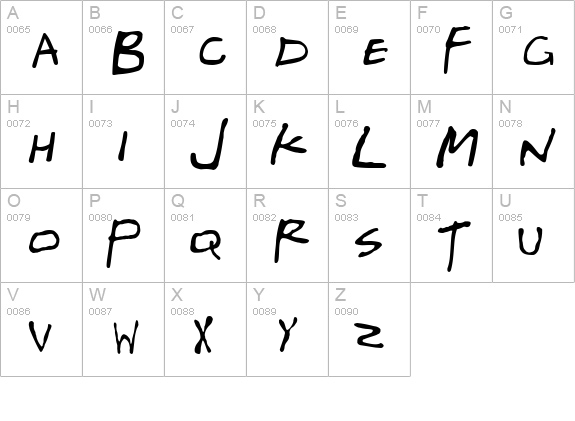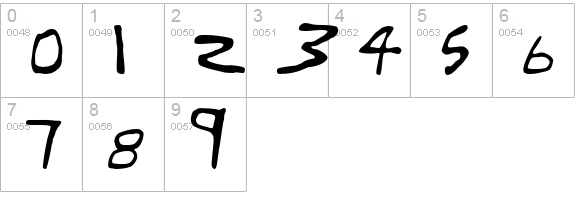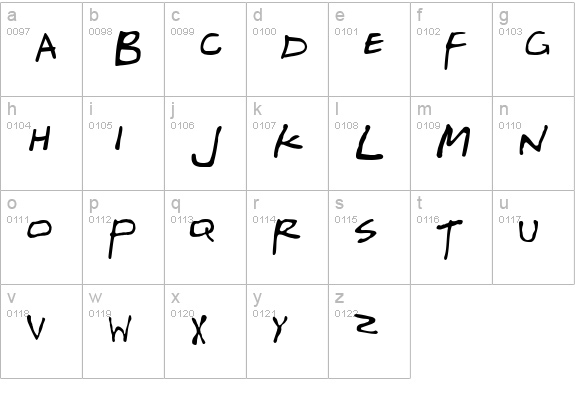
Friends Font Details
The Friends font is a fun and stylish typeface inspired by the iconic TV show. With its playful and friendly design, this font is perfect for adding a touch of nostalgia to your projects. Whether you're creating invitations, posters, or social media graphics, the Friends font is sure to make a statement. Best of all, the Friends font is available for free download at FontsMarket.com. Simply visit the website to get your hands on this fantastic font and start incorporating it into your designs today. Don't miss out on the opportunity to add a little bit of sitcom charm to your next project with the Friends font!